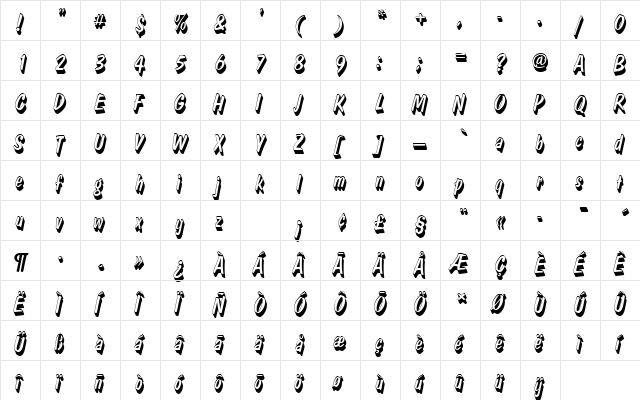
DomCasualDRegItaSh1 Regular
Design Context for DomCasualDRegItaSh1 Typeface
DomCasualDRegItaSh1 is a composed and adaptable typeface that performs quietly and consistently across a wide range of design contexts.